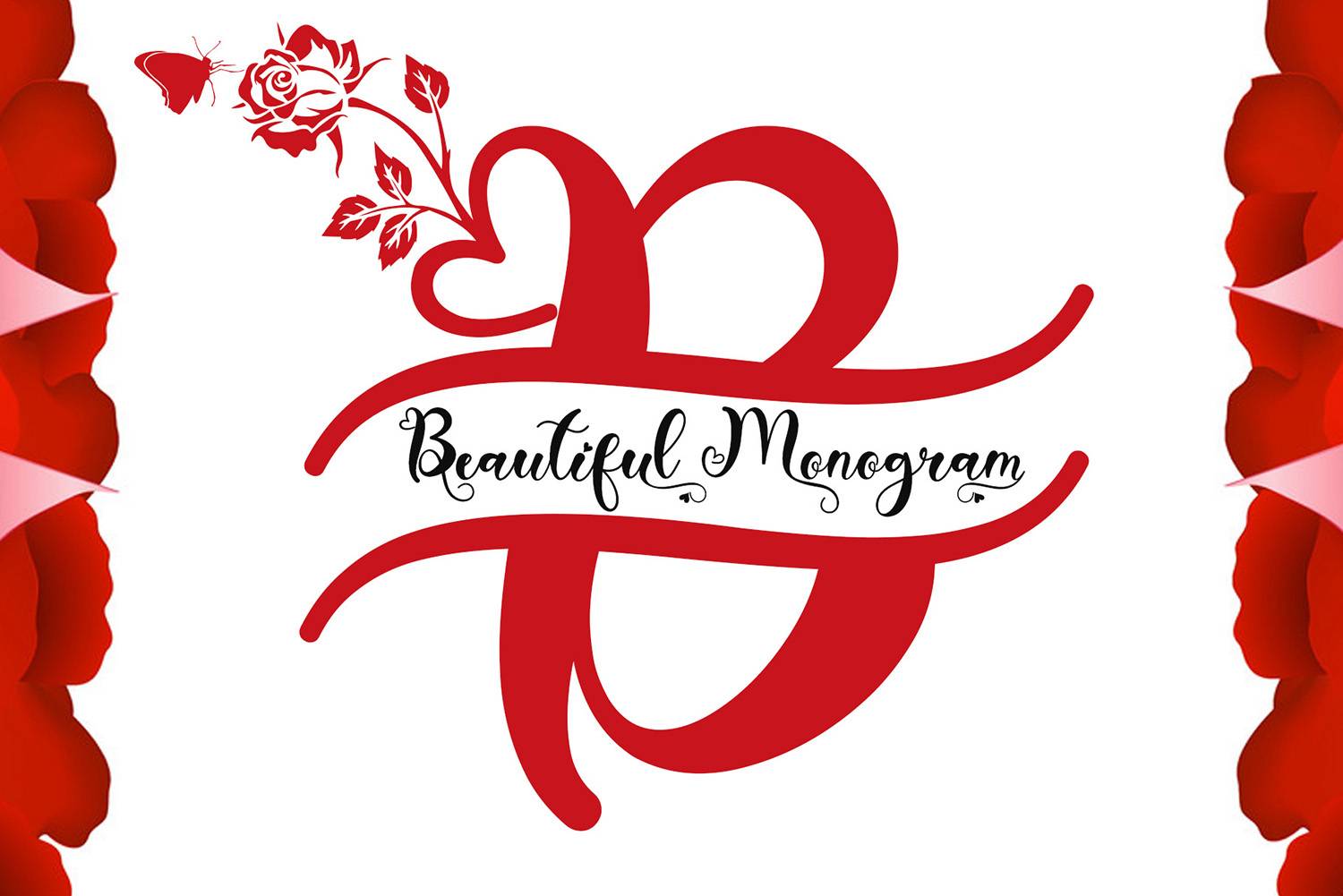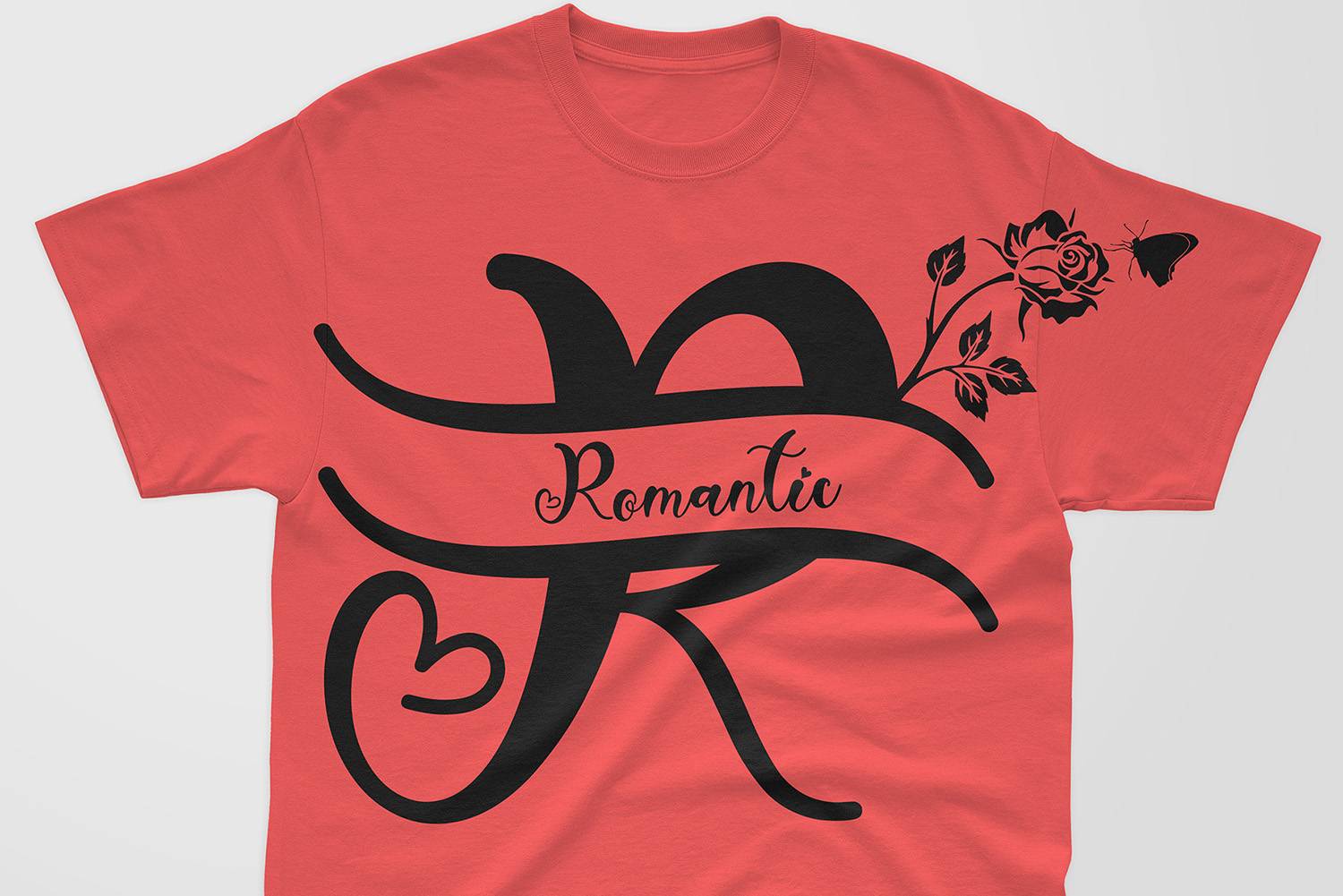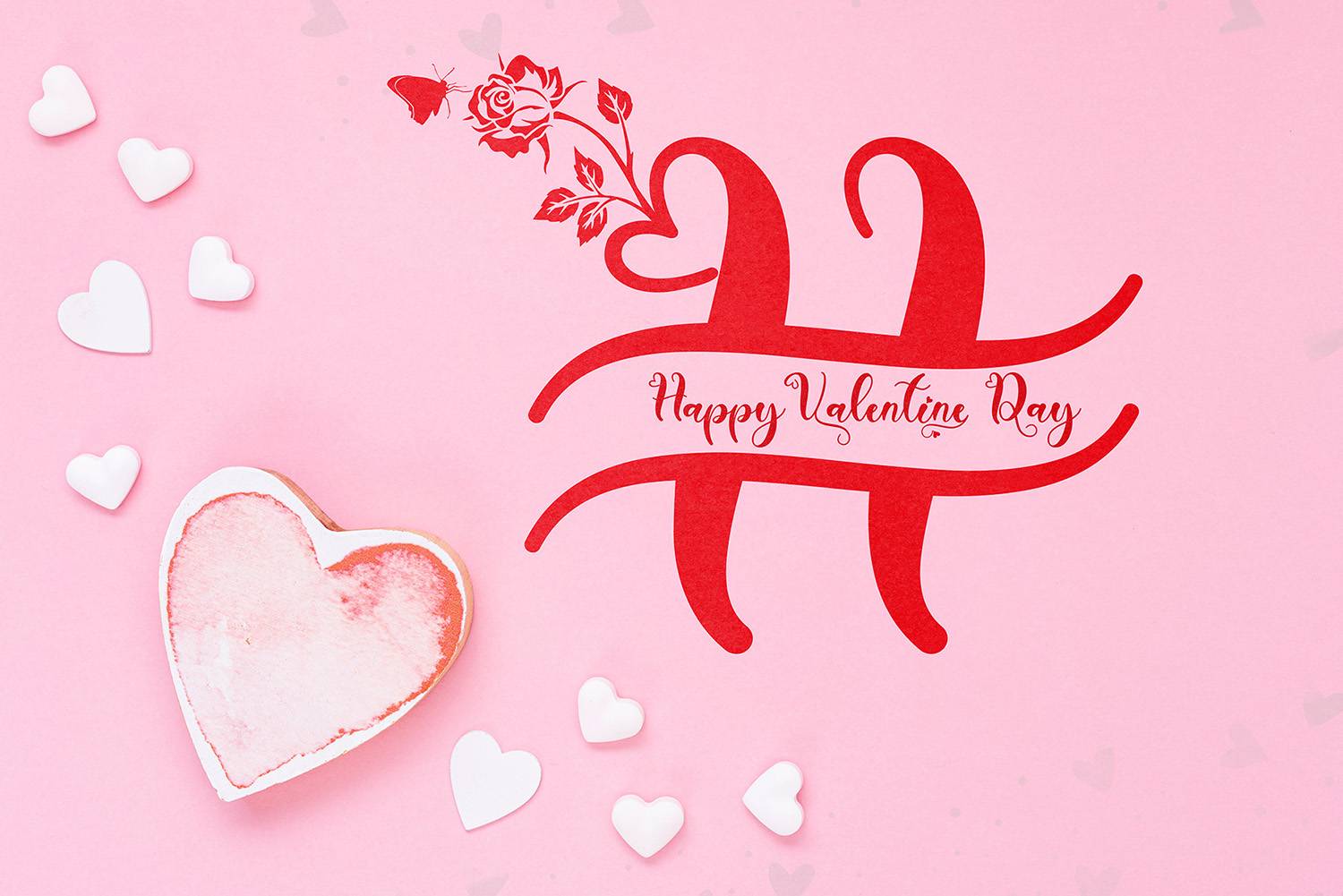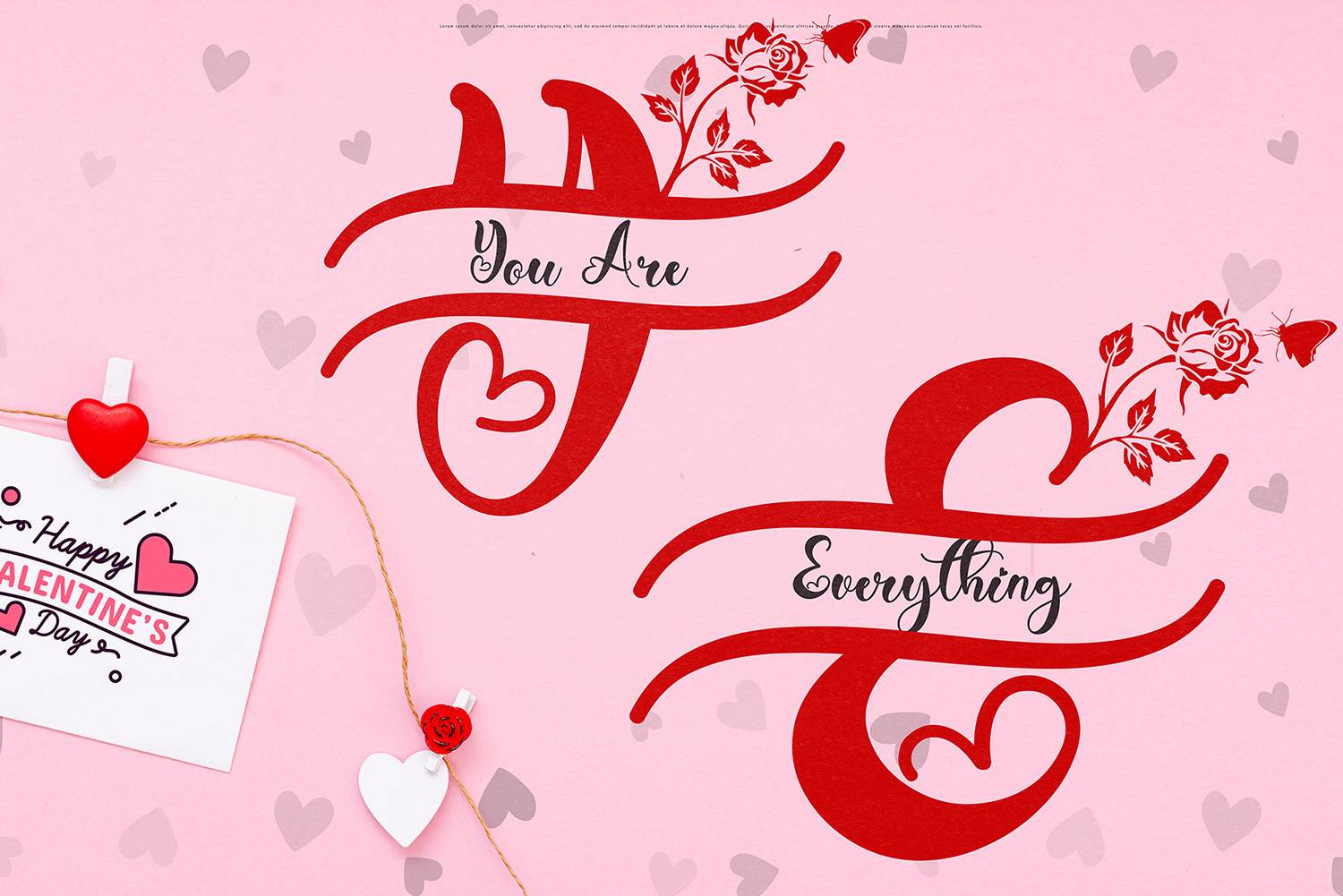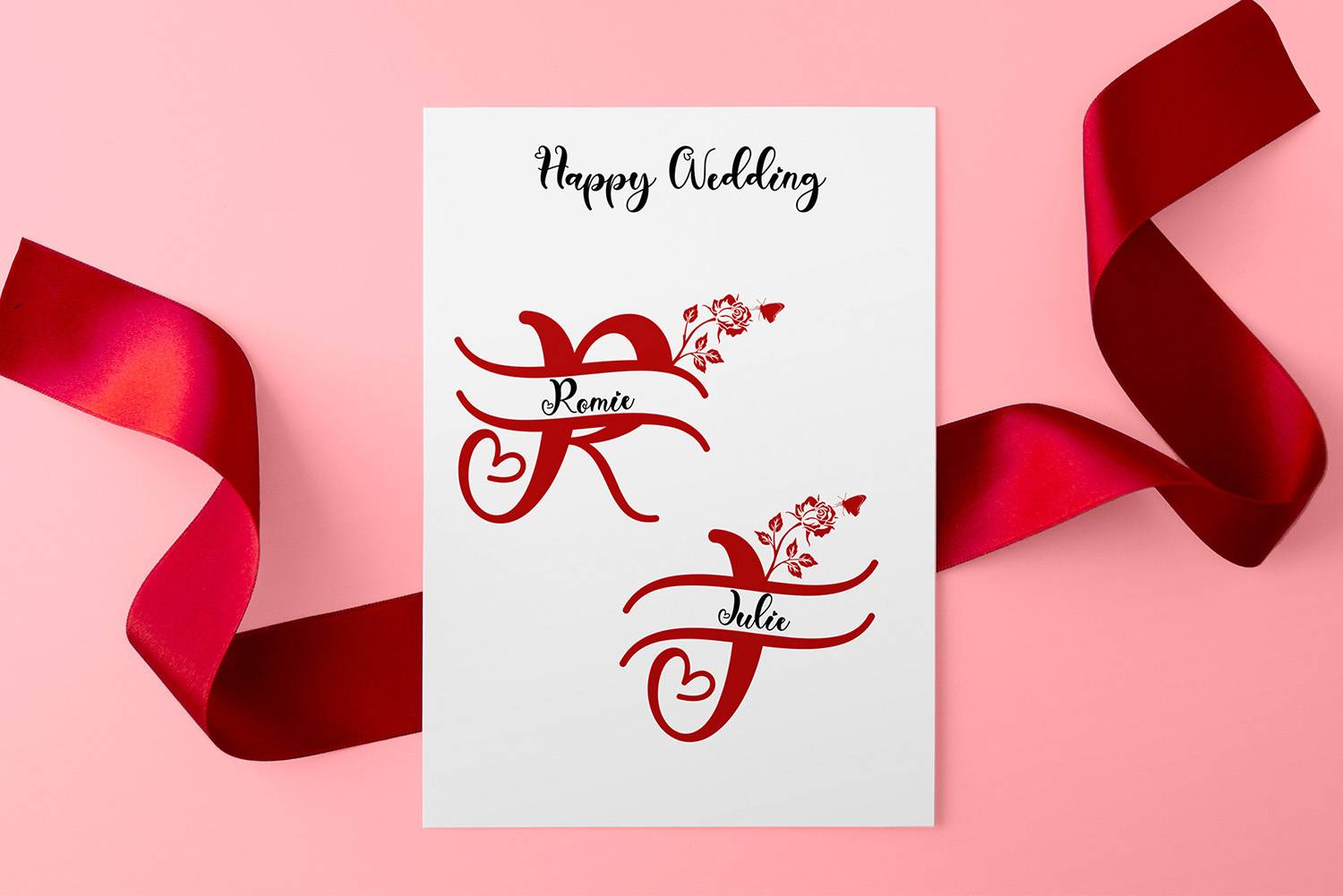
Beautiful Monogram is an elegant script font with a playful yet sophisticated feel, characterized by its flowing strokes and charming heart-shaped flourishes. Its medium weight and smooth curves make it ideal for luxury branding, invitations, and decorative logos, adding a romantic and personalized touch. This font shines in creative projects that need a warm, graceful appearance with a modern handcrafted vibe.
Beautiful Monogram Font
About Beautiful Monogram Font
| Font family | Beautiful Monogram Font |
| Release date | 2022-01-05 |
| Designer | Yoga Letter 2022 (Isroni Yoga Prasetya) |